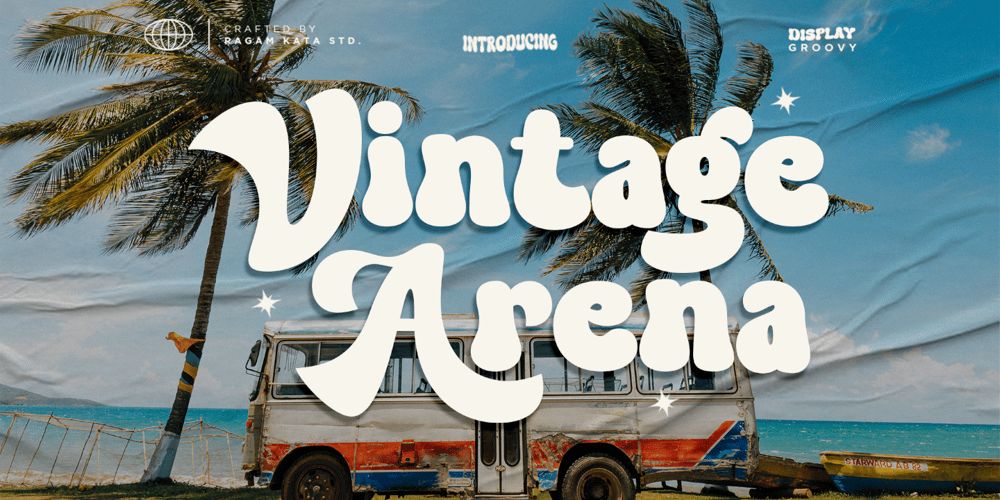
Vintage Arena Font Family was designed by Yogiswhara Dio Prakoso Riadi and published by RagamKata. Vintage Arena contains 1 styles and family package options. Vintage Arena – Retro Groovy FontIntroducing Vintage Arena- Your Passport to Groovy Retro Vibes!With The Sugiko, you’ll transform your designs into groovy, retro masterpieces that demand attention. Whether you’re crafting a funky poster, a nostalgic logo, or a throwback-inspired website, this font adds the authentic vintage touch that’s currently dominating design trends.Don’t miss out on the opportunity to incorporate the most popular retro groovy font of the moment into your designs. Vintage Arena is your key to capturing the timeless coolness that’s setting the design world on fire. Get ready to groove and get Vintage Arena now!Features :- Ligatures & Alternates- Letters, numbers, symbols, and punctuation- No special software is required to use this typeface even work in Canva- Multilingual SupportPlease contact us if you have any questions. Enjoy crafting and thanks for supporting us!Thank you.